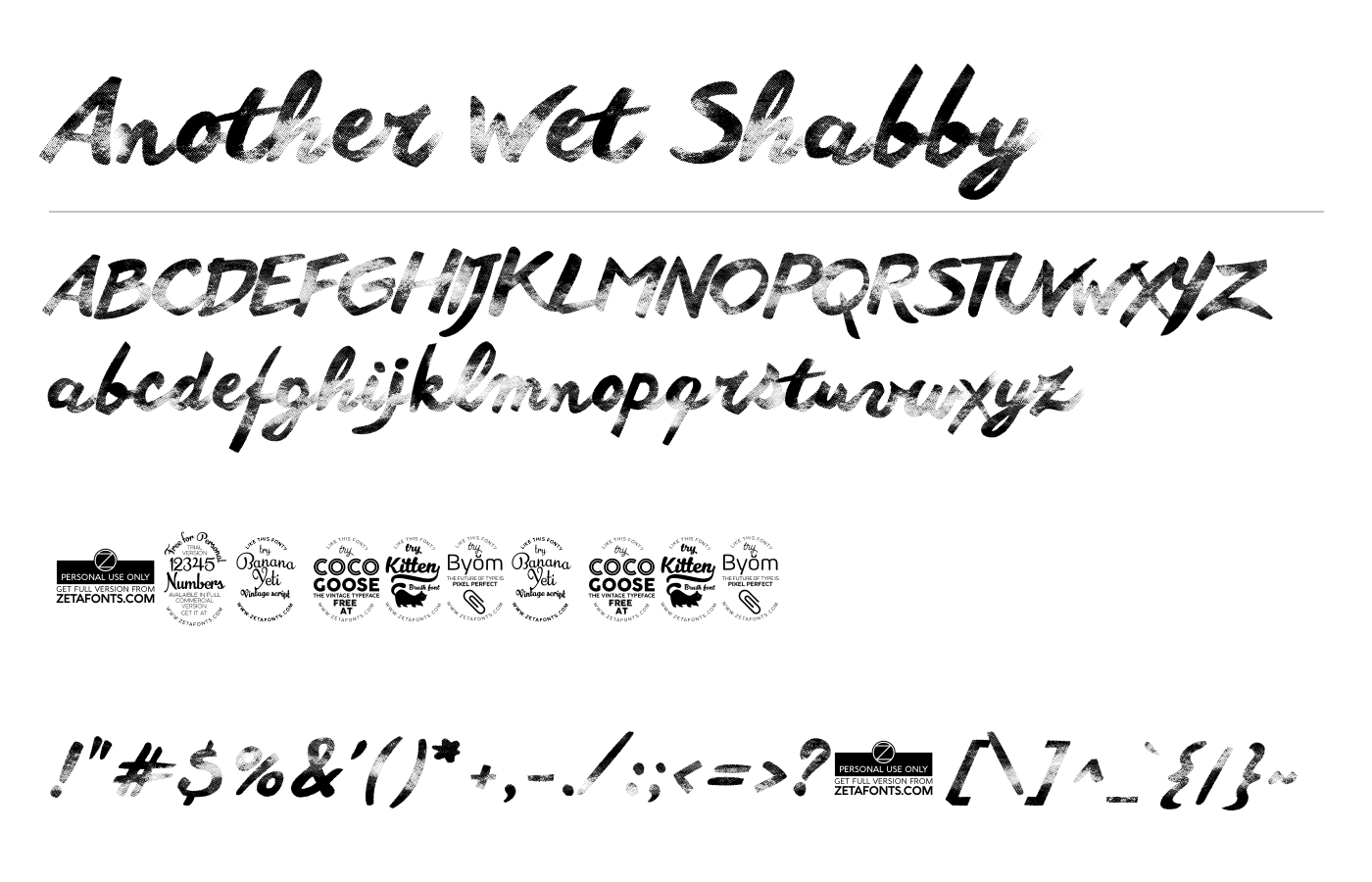
Another Wet Shabby Font is a casual, brush-script style typeface with a textured, distressed look that mimics wet ink bleeding on paper. Its lively, imperfect strokes and playful character shapes give it a hand-crafted, artistic feel, making it perfect for creative, informal designs like posters, packaging, and branding that needs a vintage or edgy vibe. This font works well in display uses where personality and expressiveness are key.
Another Wet Shabby Font
About Another Wet Shabby Font